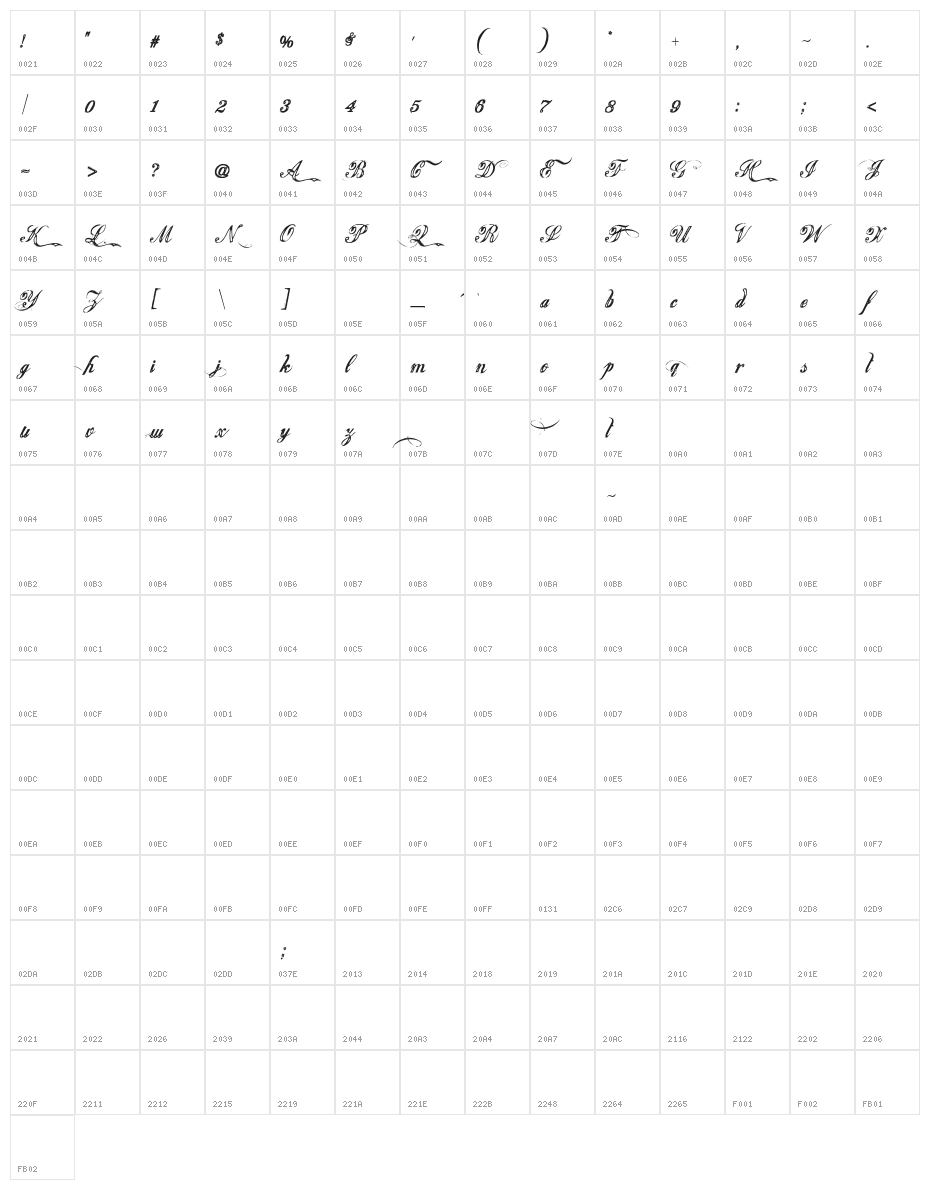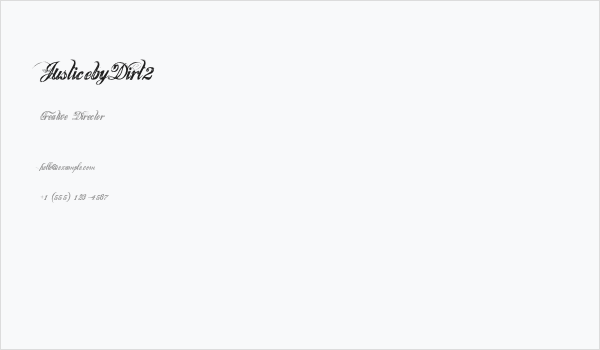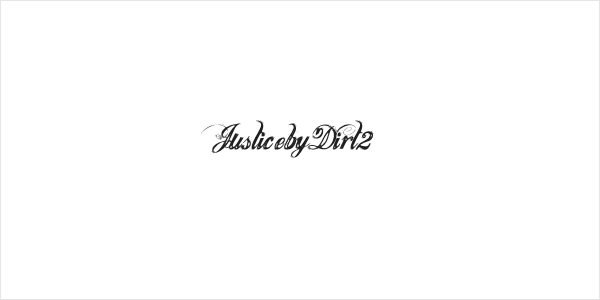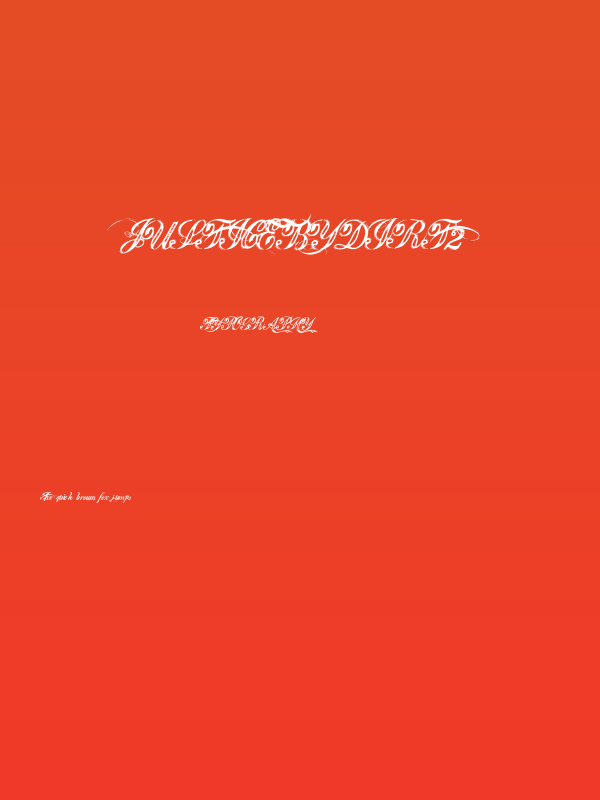
JusticebyDirt2 Font
JusticebyDirt2 Description
This font features an elaborate and intricate design, characterized by its ornate and decorative script style. The uppercase letters are particularly embellished with flourishes and swashes, giving it a highly decorative appearance. The lowercase letters maintain a cursive flow, complementing the uppercase with a slightly more restrained elegance. The numerals and special characters are consistent with the overall ornate theme, ensuring a cohesive look throughout. This font exudes a sense of sophistication and grandeur, making it suitable for formal and luxurious applications.
| Proposed Projects | Ideal for wedding invitations, luxury branding, certificates, and high-end product packaging. |